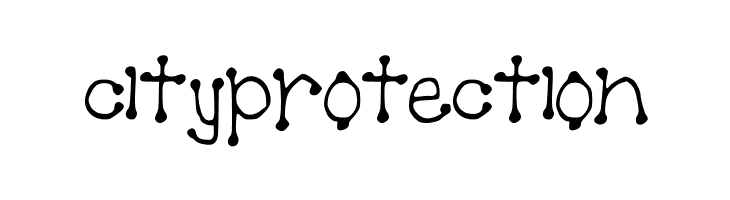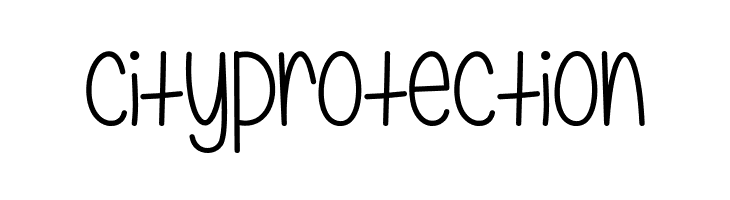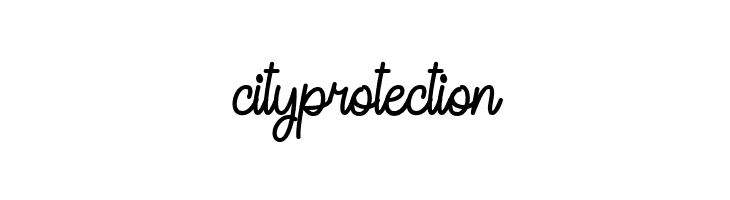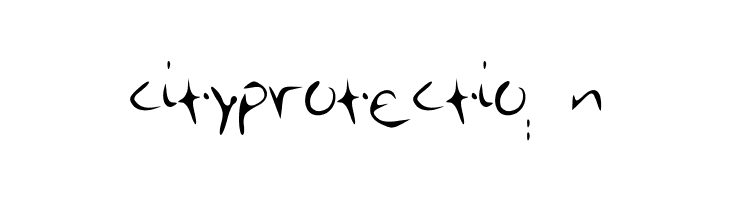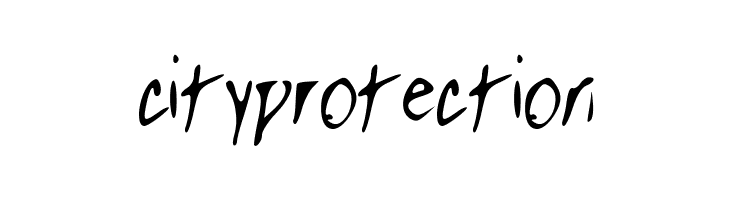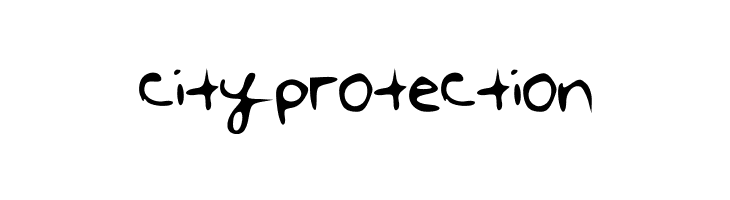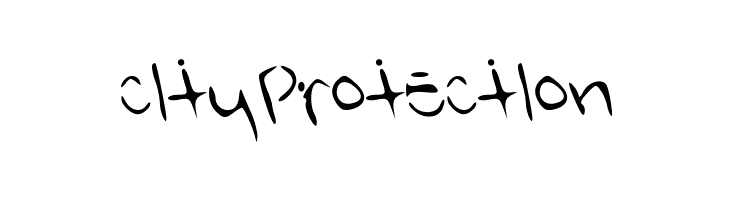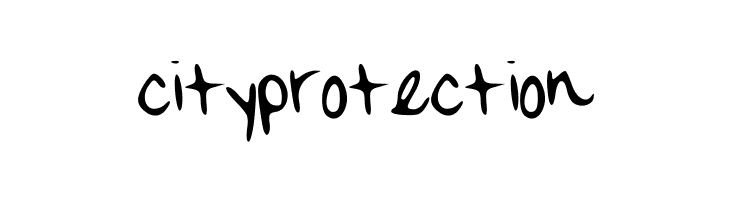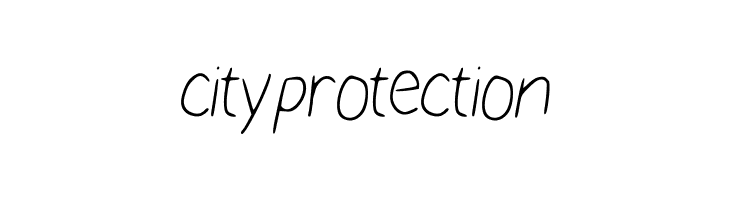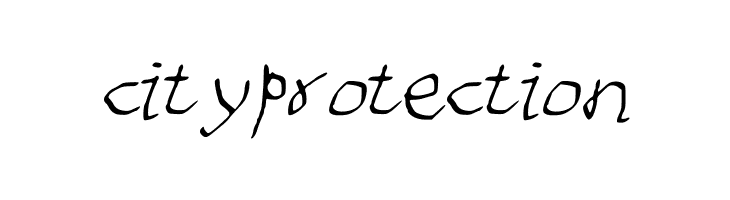
A clean, modern sans-serif font with uniform stroke width and excellent readability.
A playful, hand-drawn font with rounded, irregular letterforms.
A playful, stitched-style font with bold, geometric uppercase and lowercase letters.
A playful, casual handwritten font with a bold, organic style.
A playful, whimsical script font with bold, curvy letterforms.
A playful, hand-drawn font with a whimsical and organic style.
An ornate, Victorian-inspired font with intricate flourishes and decorative elements.
An ornate, Victorian-inspired decorative font with intricate flourishes.
A playful, hand-drawn style with textured, irregular edges.
A playful, handwritten-style font with a casual and informal appearance.
A hand-drawn, artistic font with tall, slender characters and a subtle elegance.
A whimsical, decorative font with playful patterns and artistic flair.
Ornamental font with detailed Christmas wreath illustrations.
A playful, handwritten font with rounded, informal letterforms.
A playful, handwritten font with a textured and organic appearance.
A thin, handwritten font with a casual and personal style.
A playful, hand-drawn font with a textured, whimsical style.
A playful, informal handwritten font with uneven strokes.
A playful, hand-drawn font with irregular strokes and a whimsical style.
A whimsical, gingerbread-themed font perfect for festive projects.
A whimsical, decorative font with curly, looping strokes and artistic embellishments.
A playful, hand-drawn font with bubble-like terminals and a whimsical style.
A playful, hand-drawn font with rounded, elongated characters.
A playful and elegant script font with a handwritten style.
A dynamic, handwritten-style font with fluid, expressive strokes.
A dynamic, handwritten font with playful and irregular letterforms.
A playful, casual handwritten font with irregular strokes and organic flow.
A dynamic, hand-drawn font with an expressive and artistic style.
A playful, casual handwritten font with dynamic and irregular strokes.
A casual, handwritten font with smooth, slightly slanted strokes.
( Pomapelele Inc )
A casual, handwritten font with an organic and dynamic style.
( Renaboo - eviseverywhere.wix.com/theartofsampling )
A playful, hand-drawn font with quirky, irregular strokes and dynamic character shapes.
( Renaboo - eviseverywhere.wix.com/theartofsampling )
A whimsical, hand-drawn font with playful, irregular shapes and varying stroke widths.
( Renny Murray - www.rennysniche.com )
A playful font with characters embedded in fly illustrations, offering a whimsical and decorative style.